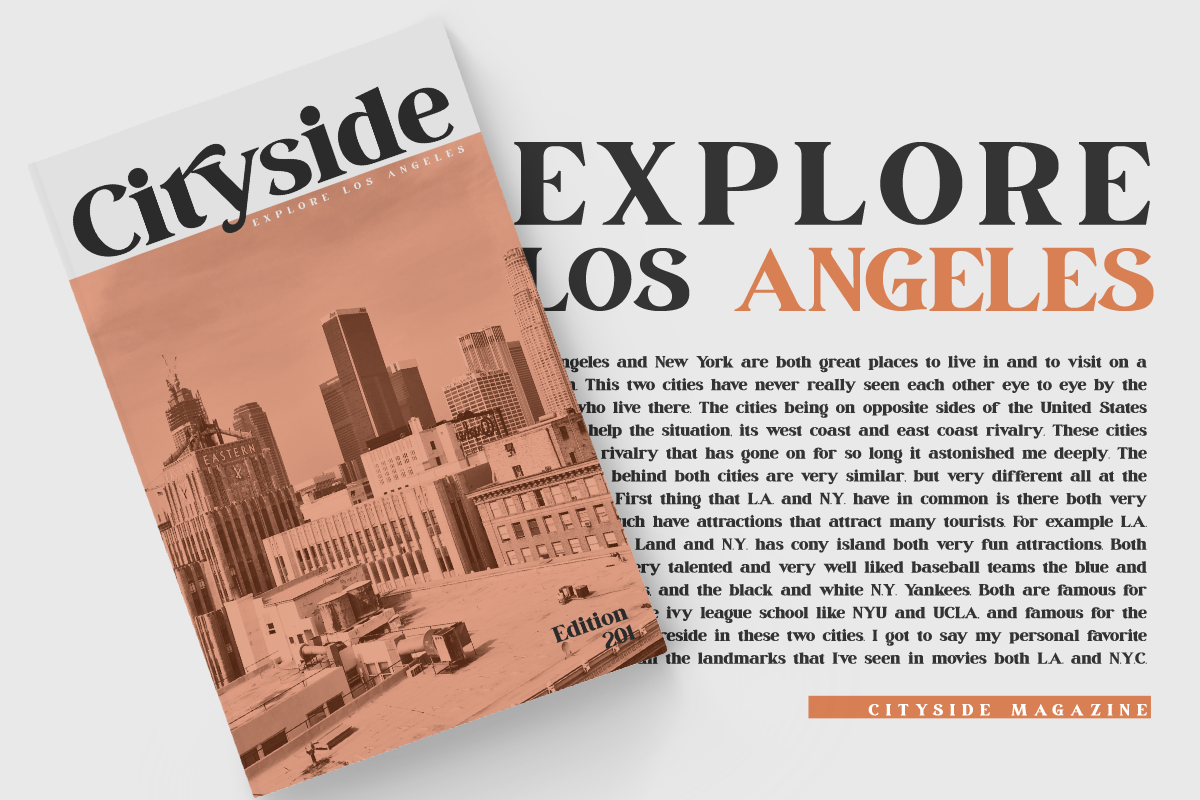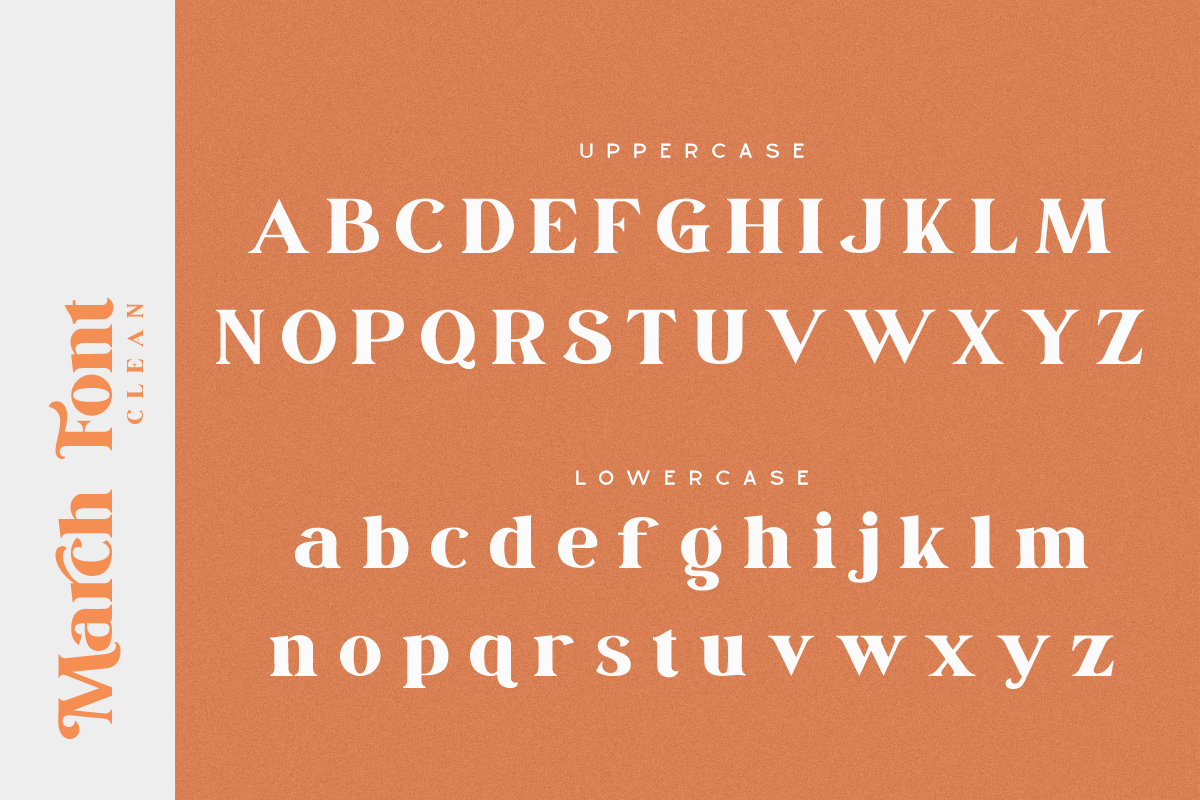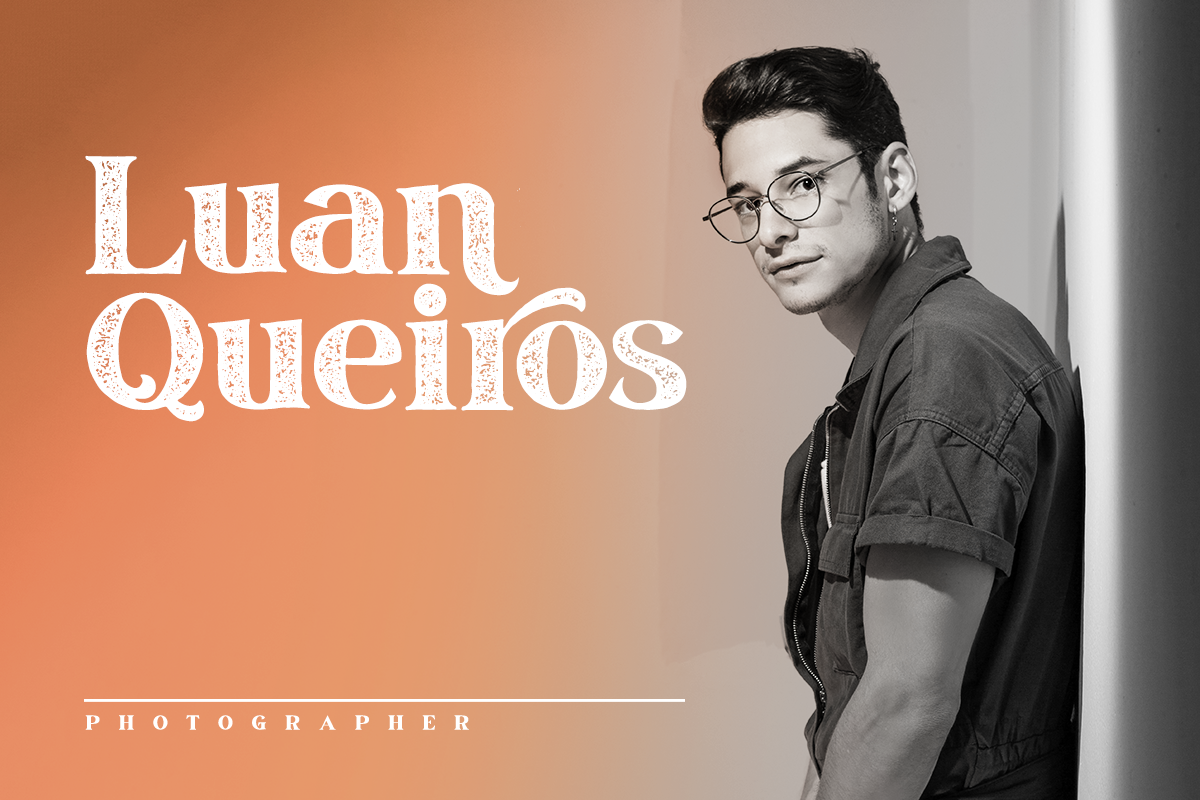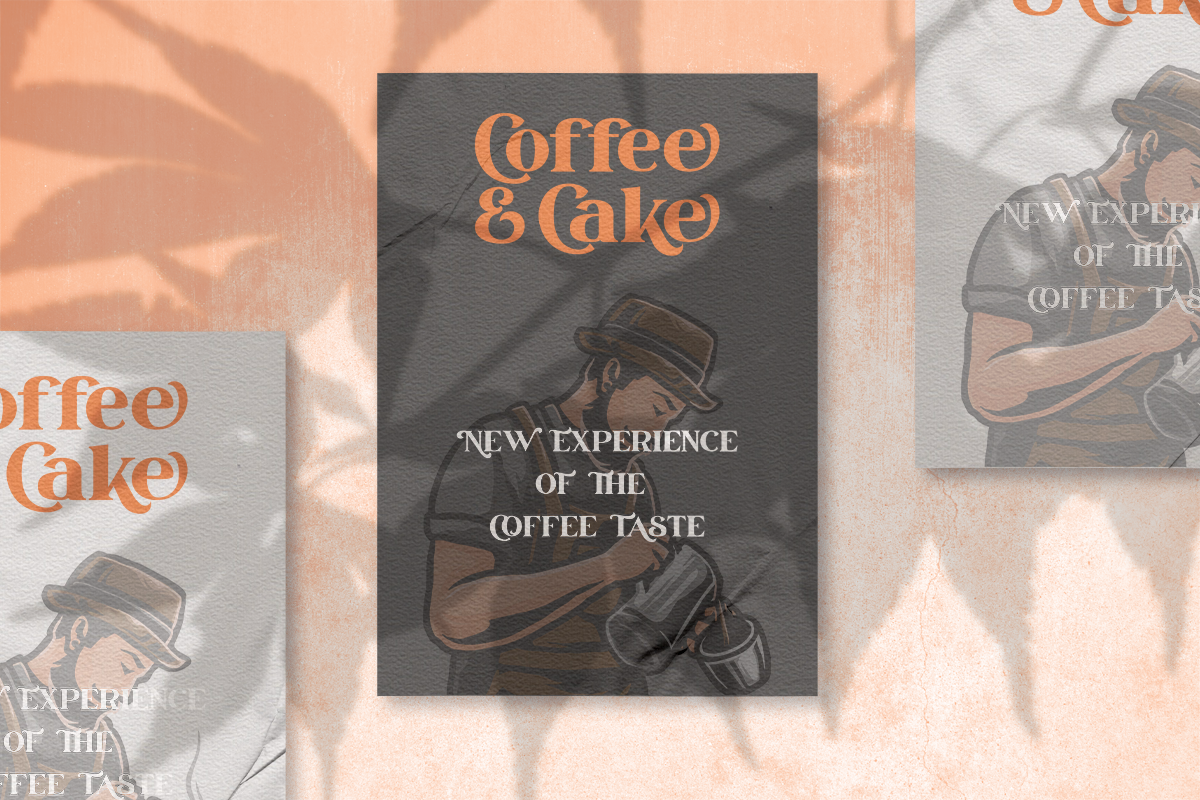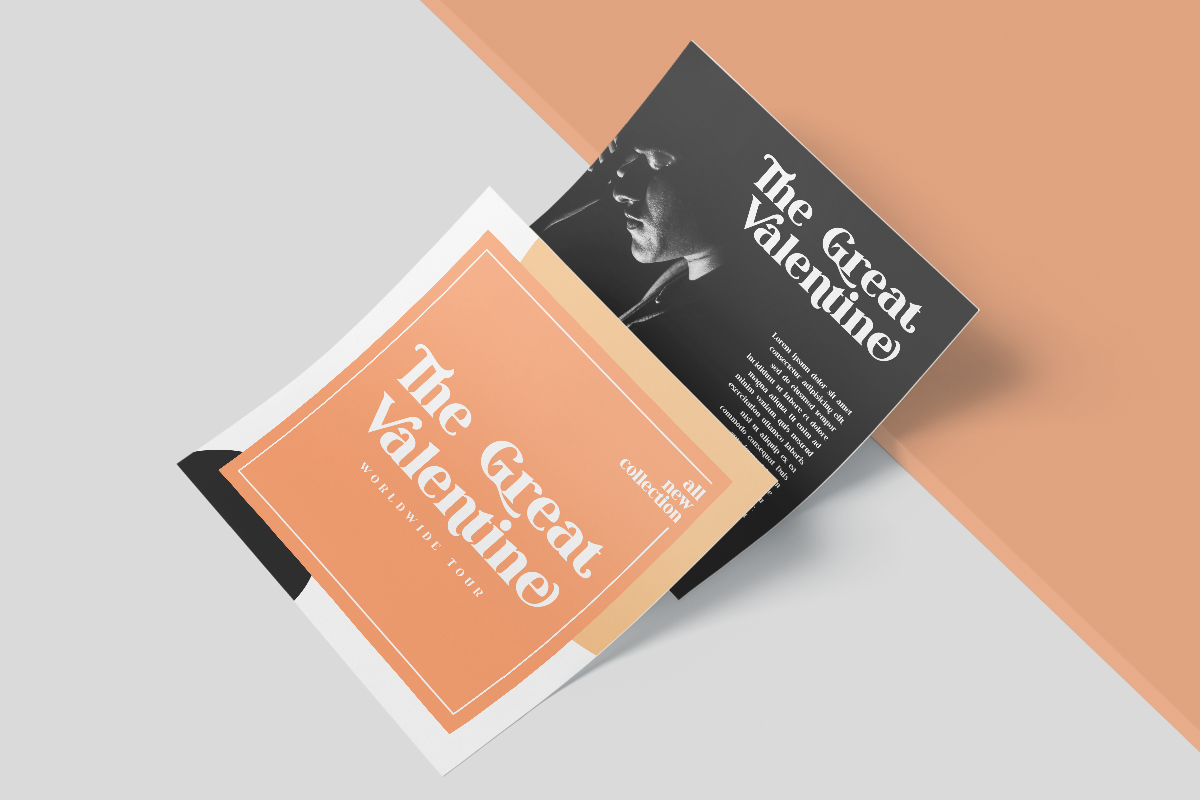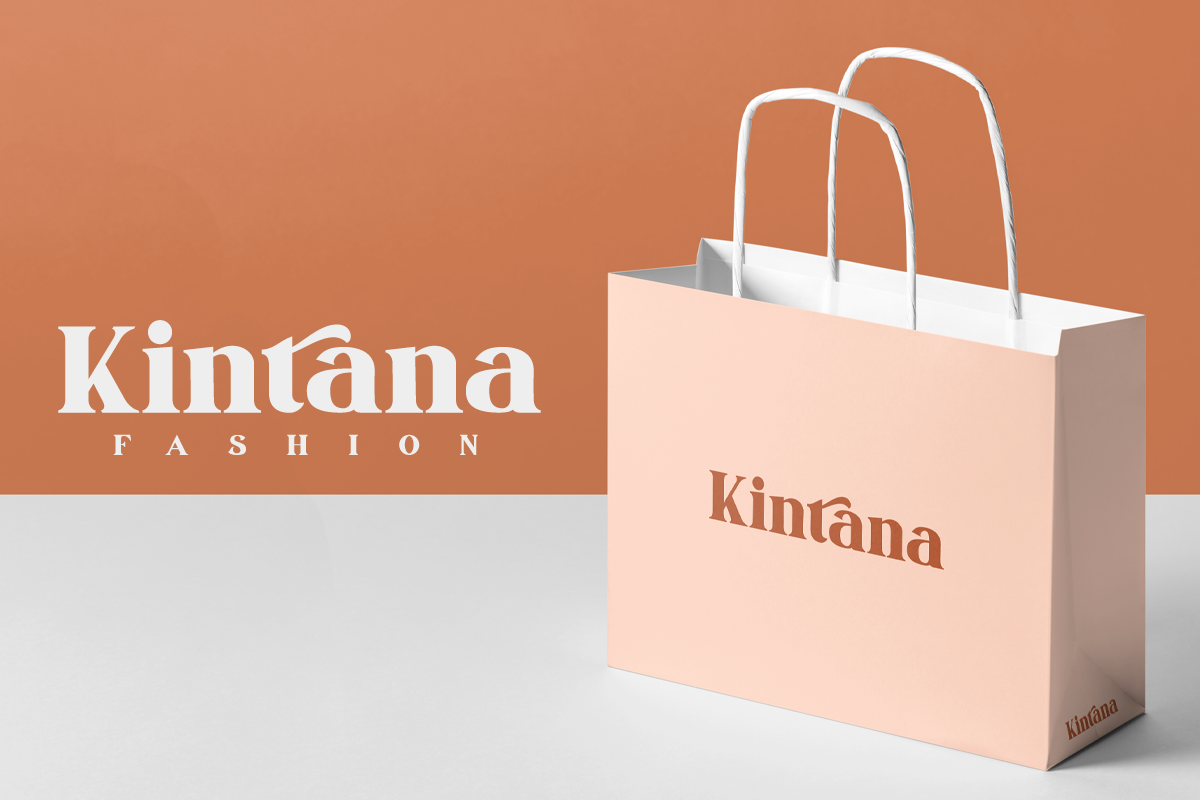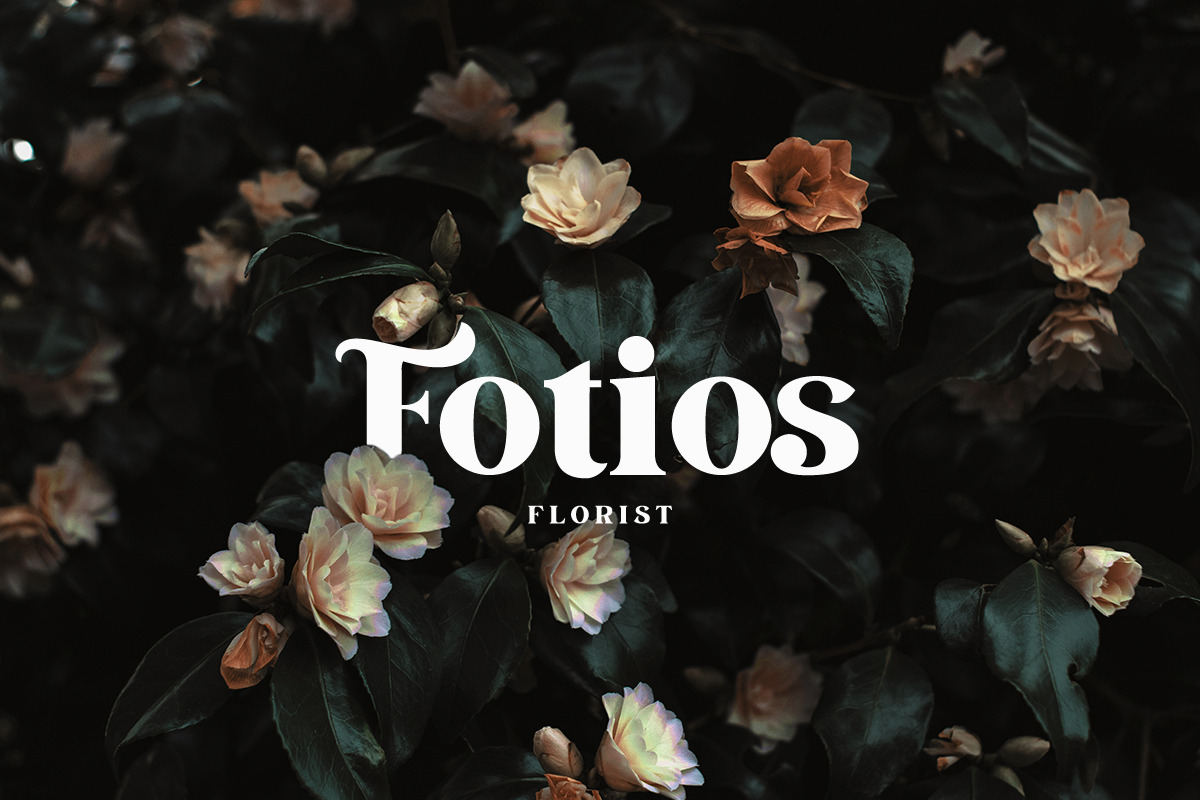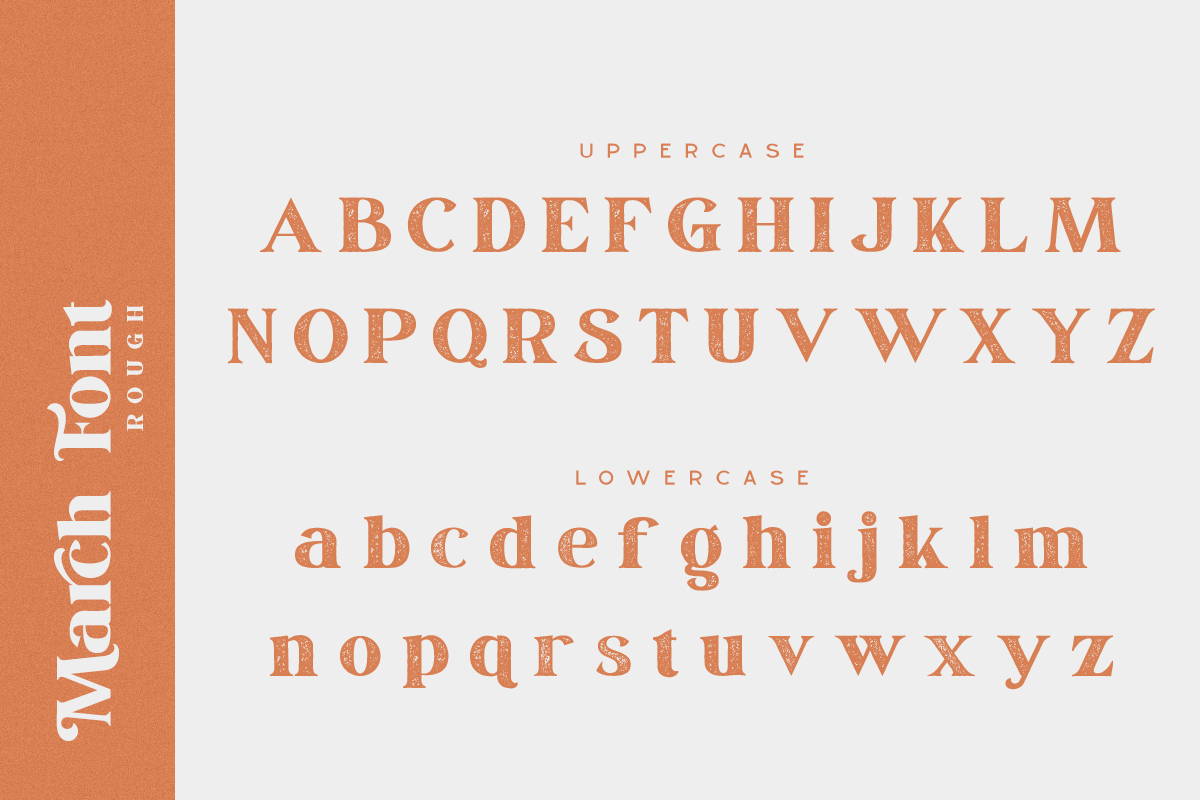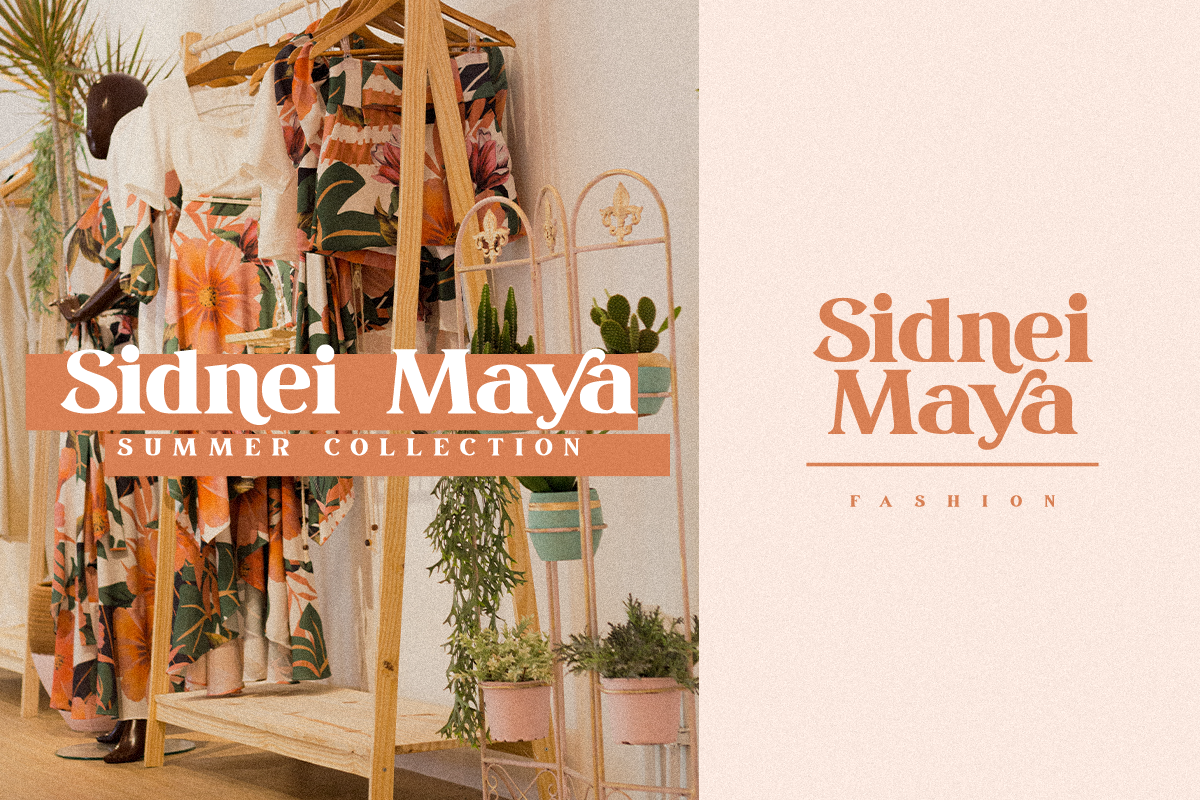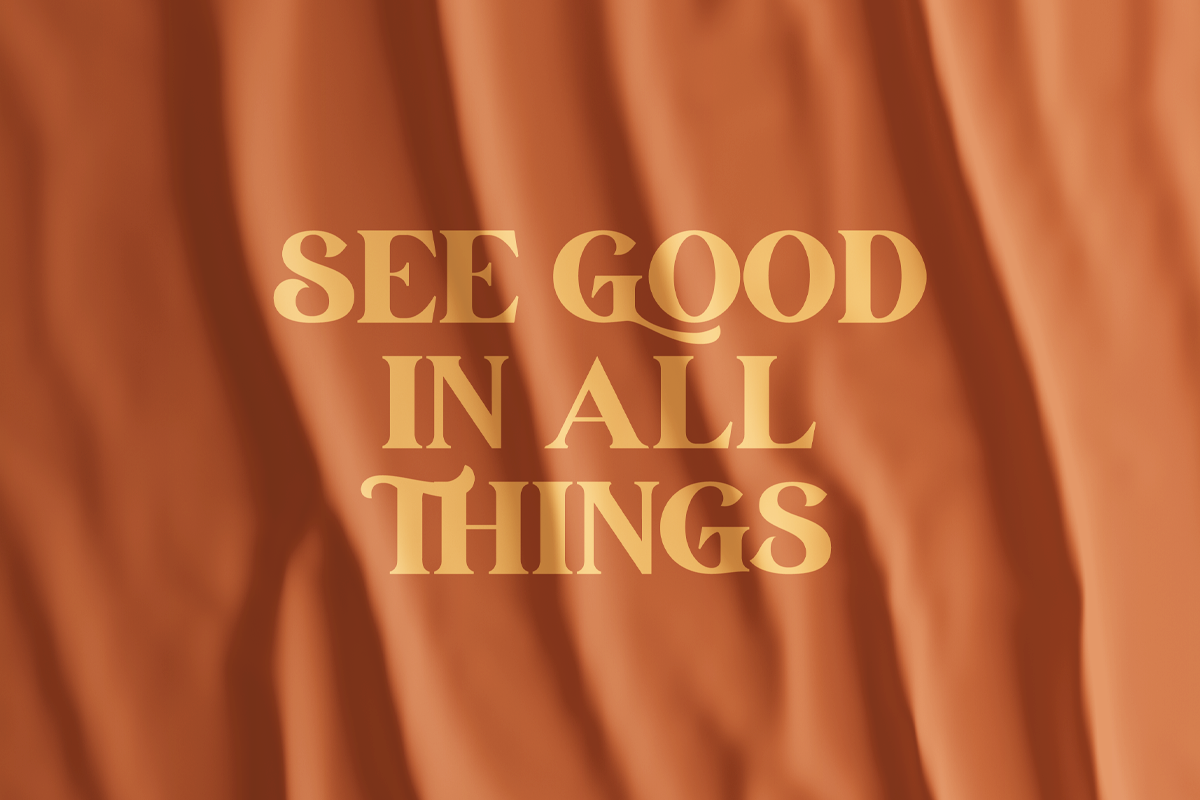
March - Elegant Serif Font
Say hello to March font. The March font is a modern and clean display (Serif) font. Create from our talented font designer. The design of typeface will make your design more beautiful and inspiring. This font will suitable for various designs, such as posters, banners, logos, book covers, headings, printed products, merchandise, social media, and more. Find out more ways to use this font by taking a look at the font preview.